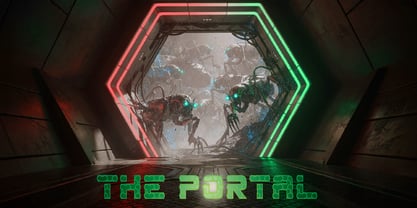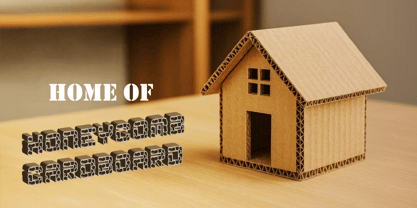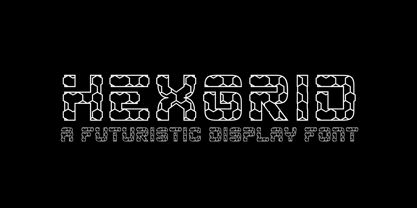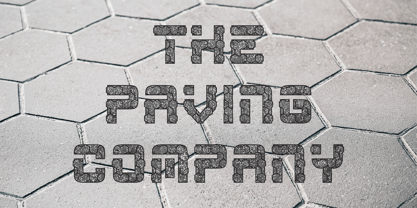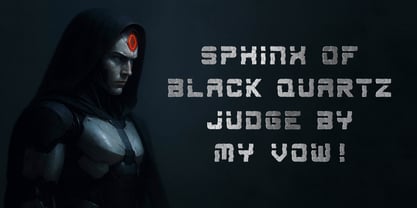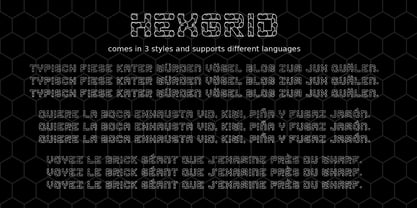
HexGrid
HexGrid is a futuristic typeface inspired by robotic aesthetics, featuring juxtaposed metal pieces. The design incorporates shapes filled with an intricate hexagonal pattern, merging the elegance of architectural paving with the boldness of industrial lettering. This typeface is crafted to capture attention, evoking a sense of structure, precision, and modern technology, making it ideal for branding, packaging, and user interfaces.